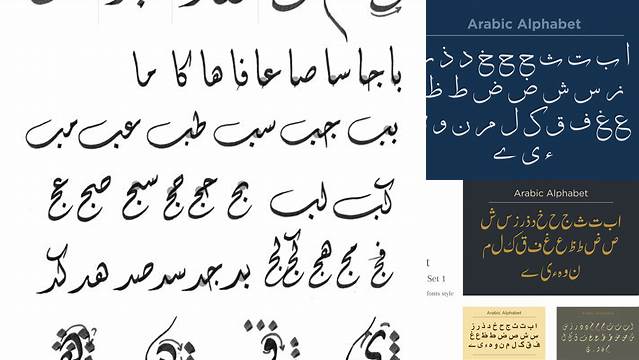
Arabic Fonts: Copy & Paste Guide For Stunning Text
Hey everyone! Ever wanted to spice up your text with some cool Arabic fonts but found it a bit of a hassle? Well, you're in the right place! This guide is all about different Arabic fonts, making it super easy for you to copy and paste them wherever you need. We'll dive into a bunch of awesome fonts, how to use them, and even give you some tips to make your text pop. Let's get started and transform your words into something visually amazing! We'll explore different styles, from the elegant Diwani to the bold Kufi, and learn how to seamlessly integrate them into your projects. Whether you're crafting social media posts, designing graphics, or simply adding a touch of Arabic flair to your documents, this guide has you covered. So, grab a seat, and let's get those creative juices flowing with the wonderful world of different Arabic fonts!
Different Styles of Arabic Fonts for Copy and Paste
Alright, guys, let's kick things off by exploring the diverse world of different Arabic fonts! There's a whole universe of styles out there, each with its own unique charm and personality. Understanding these styles is the first step to finding the perfect font for your needs. We'll delve into some popular categories, including Naskh, Thuluth, and Kufi, and discover what makes them special. Knowing the distinctions between these styles will help you choose fonts that not only look good but also convey the right message and mood. Let's break it down and see what kind of styles exist.
Naskh, for example, is a classic and widely used style, known for its clarity and readability. It's the go-to choice for general text and is incredibly versatile. Then there's Thuluth, which is more decorative and often used for headlines and titles. It's got a beautiful, flowing aesthetic that grabs your attention. Kufi, on the other hand, is a more angular and geometric style, often seen in architectural designs and artistic expressions. It's bold and impactful. Each of these styles, and many others, has its own history and purpose, making the world of different Arabic fonts incredibly rich and fascinating. As we move on, consider the purpose of your design. What do you want your text to communicate? This will help you choose the style. It's the foundation upon which all the creativity will build.
Understanding Naskh Fonts and Their Applications
Let's take a closer look at Naskh fonts. As I mentioned before, Naskh is a workhorse of the Arabic font world, valued for its clarity and ease of reading. It's the Helvetica or Times New Roman of Arabic typography, perfect for body text and general use. But what makes Naskh fonts so user-friendly? Well, they're designed with well-defined letterforms, making them easy to distinguish at a glance. The strokes are clean, the spacing is balanced, and the overall design is optimized for legibility. Because of these properties, Naskh fonts are ideal for books, articles, and any long-form content where readability is paramount. When you're selecting a Naskh font, look for variations that suit your particular needs. Some Naskh fonts may have a slightly more modern feel, while others retain the classic calligraphy-inspired elegance.
Copy and paste these fonts into your documents, presentations, or any other context, you can be sure that the text will be easily understood by a wide audience. Moreover, you can explore different Naskh fonts. Explore different weights and styles within the Naskh family to find the perfect fit for your project. Some Naskh fonts will have a more elegant, calligraphic style, while others will have a more modern, clean look. The range of different Arabic fonts within the Naskh category is extensive. This gives you plenty of options for customization. Experimenting with different Naskh fonts, weights, and styles is a great way to elevate your content. It can help you achieve a polished and professional look that's easy on the eyes.
Exploring the Elegance of Thuluth Fonts
Next up, let's journey into the elegant world of Thuluth fonts. Unlike the workhorse nature of Naskh, Thuluth is all about flair and artistry. It's a calligraphic style, often used for headlines, titles, and decorative purposes. If you want to make a statement with your text, Thuluth is your go-to choice. The defining characteristics of Thuluth fonts are their graceful curves, flowing strokes, and the beautiful interplay of thick and thin lines. Each letter is a work of art, making Thuluth fonts visually captivating. They are ideal for creating a sense of sophistication, luxury, or traditional elegance. You'll find Thuluth fonts gracing everything from religious texts to high-end branding.
When you're looking to copy and paste a Thuluth font, keep in mind that its primary function is to draw attention. Think of it as the showstopper of your typographic ensemble. Whether you're designing a poster, creating a logo, or adding an eye-catching header to your website, Thuluth can deliver the desired effect. The variety within Thuluth is also worth noting. There are numerous variations, each with its unique character and flair. Some Thuluth fonts may have a more contemporary edge, while others hearken back to classical calligraphy. With different Arabic fonts, exploring these variations is essential for finding the perfect match. As you experiment, you'll discover which Thuluth fonts best resonate with your creative vision. Be sure to experiment with different sizes and weights. This can enhance the impact and visual appeal of your Thuluth text.
The Boldness and Beauty of Kufi Fonts
Alright, let's move on to the striking world of Kufi fonts. Unlike the flowing grace of Thuluth or the readability of Naskh, Kufi brings a sense of strength and structure to your typography. Kufi fonts are characterized by their angular, geometric shapes. The fonts are often associated with architecture, design, and artistic expressions. With bold lines, sharp angles, and a clear, deliberate aesthetic, Kufi fonts make a strong visual impact. They're ideal for creating a sense of authority, tradition, or modernity. You'll often see Kufi fonts used in logos, signage, and creative projects where you want the text to command attention. When you're looking to copy and paste a Kufi font, consider the context. Will this font be used for headlines? Or is it for a specific artistic expression? Kufi excels at conveying strength. The key here is to choose a Kufi font that matches your project's overall aesthetic.
There are various Kufi styles, from the classic, formal Kufi to more contemporary, stylized versions. Depending on the style, you can give the font the impression of heritage or modernism. With different Arabic fonts, you'll have a range of options. You'll discover that Kufi can be surprisingly versatile. With the right font choice and application, Kufi can bring a distinctive flair to your design. Experiment with different sizes, weights, and arrangements to find what best suits your needs. The geometric precision of Kufi can be mesmerizing, adding a unique touch to any project.
Using Arabic Fonts in Different Contexts with Copy and Paste
So, now that we've gotten familiar with the different styles, let's talk about how to actually use them. It's one thing to know about different Arabic fonts, and it's another to seamlessly integrate them into your work. Whether you're crafting social media posts, designing websites, or creating documents, you'll want to know how to copy and paste these fonts correctly. Here, we will look into how to use Arabic fonts in various contexts. Let's explore how to copy and paste these fonts in different contexts to get the best results and make your designs really pop!